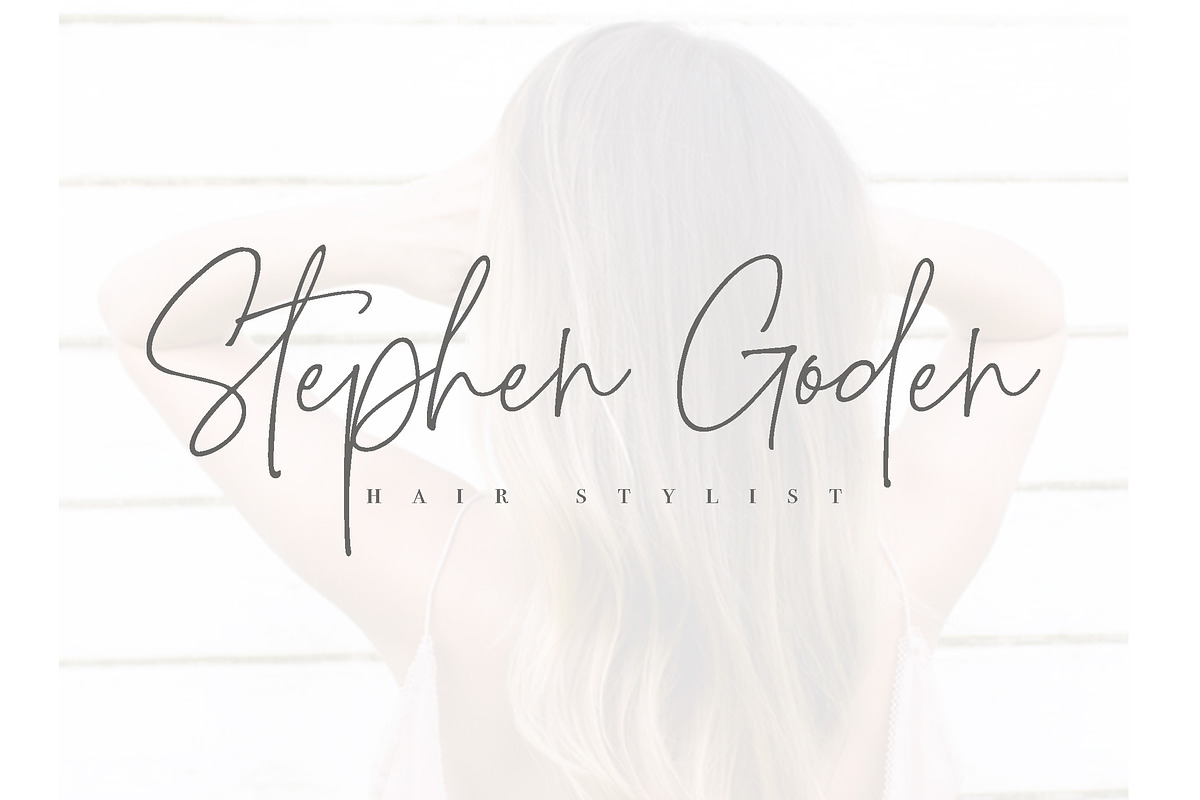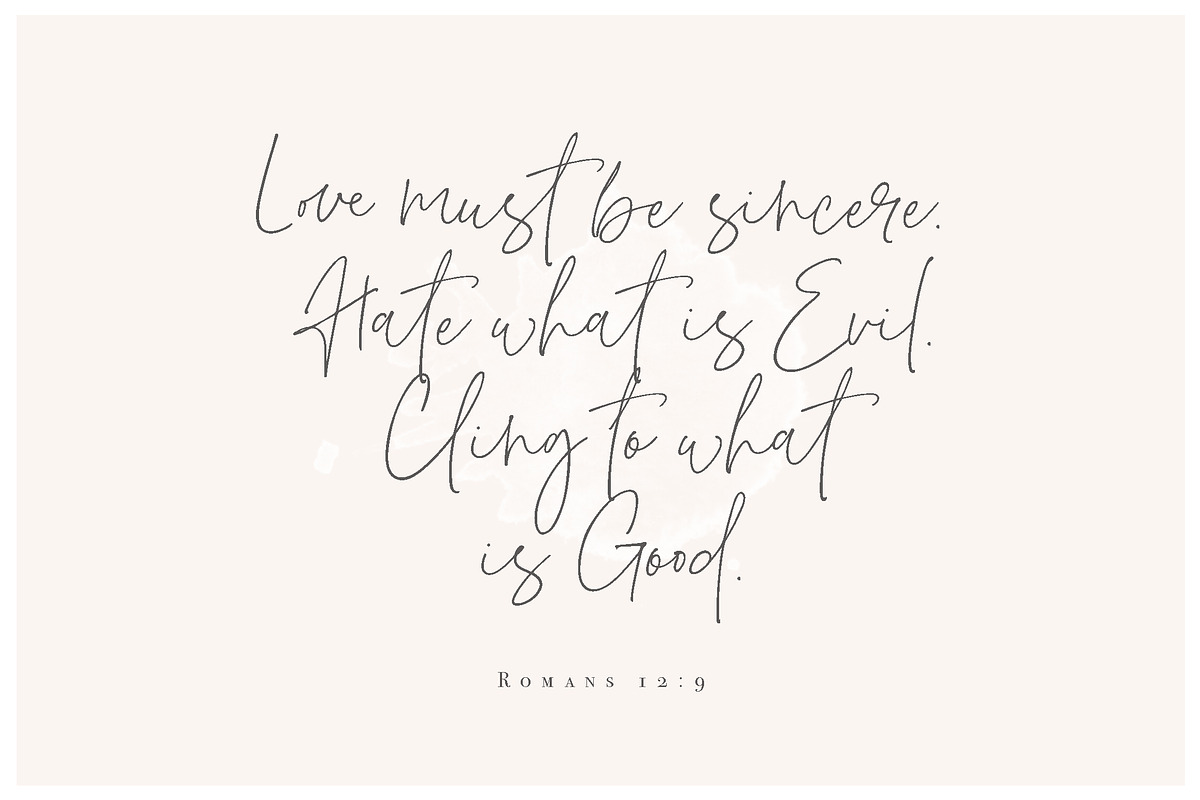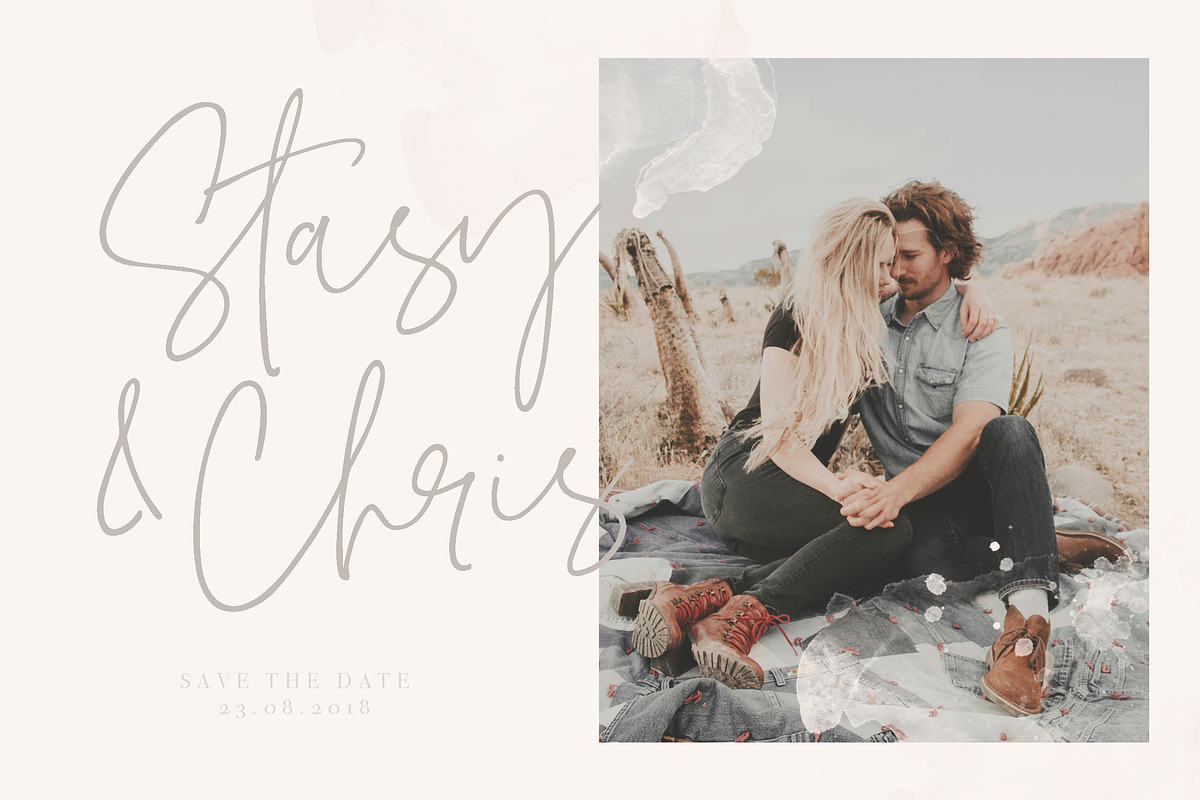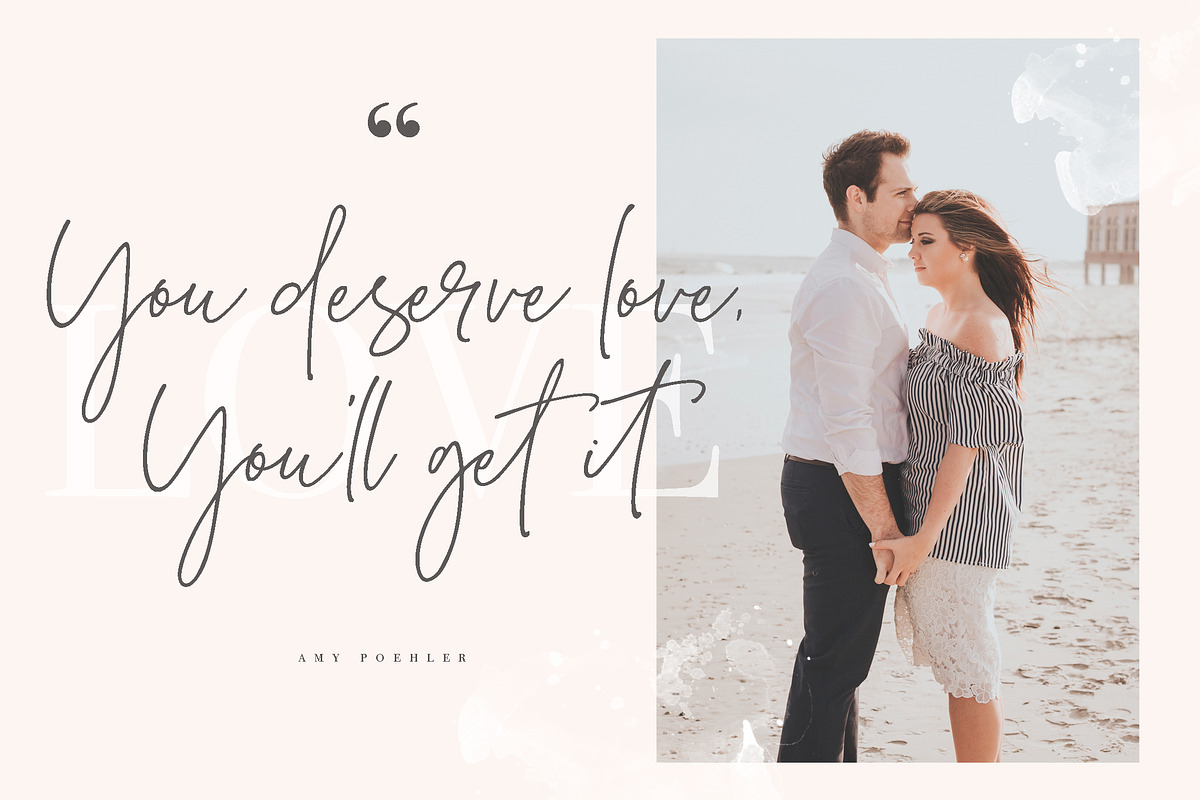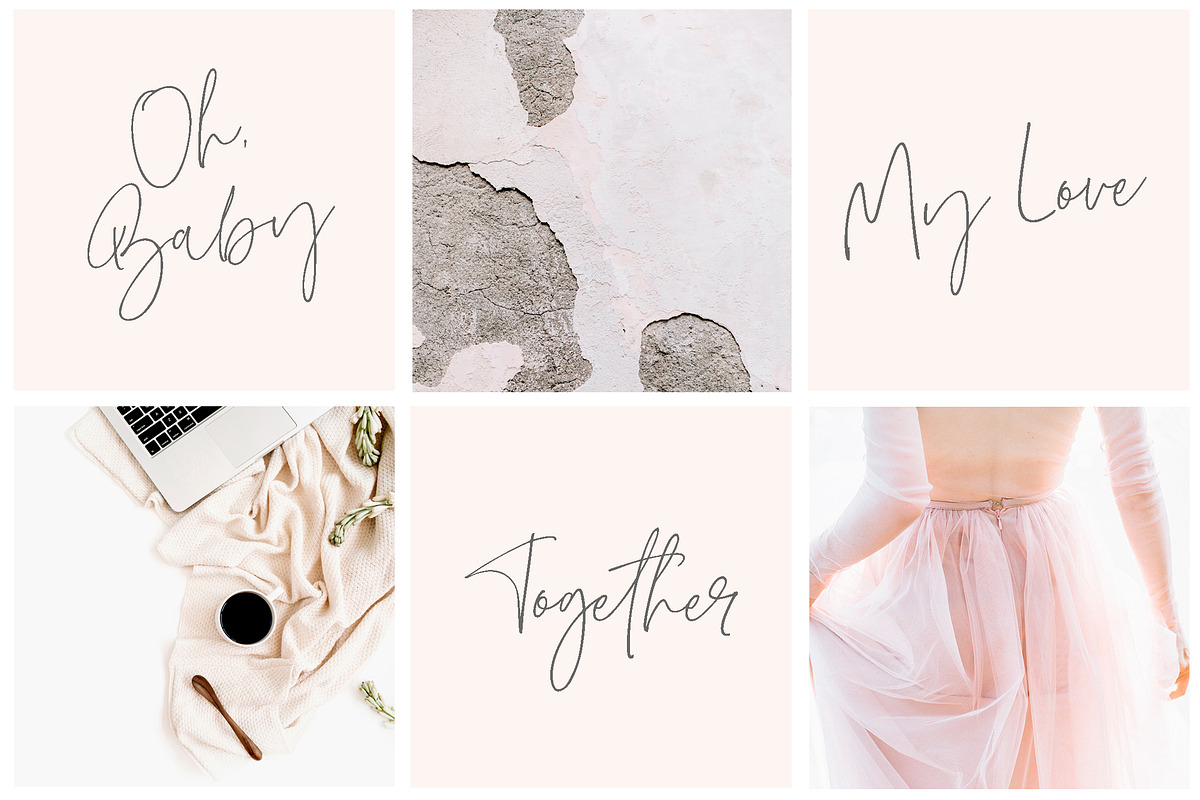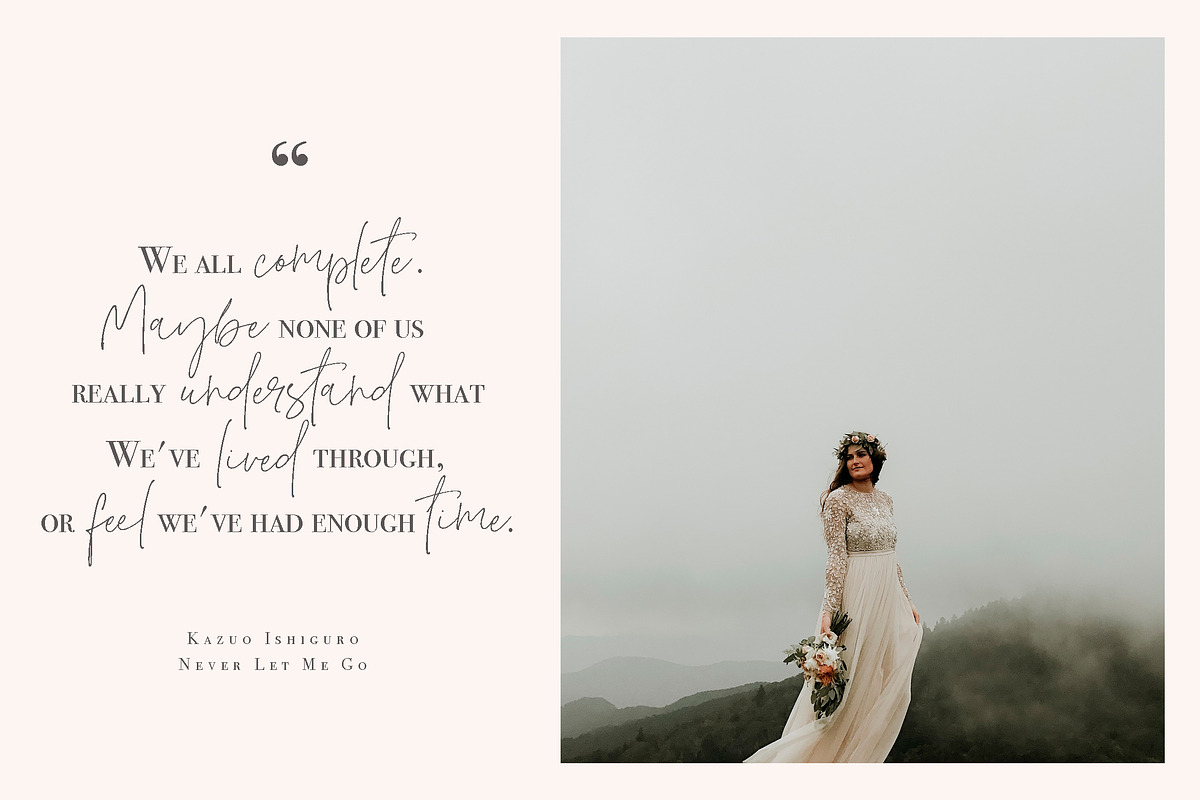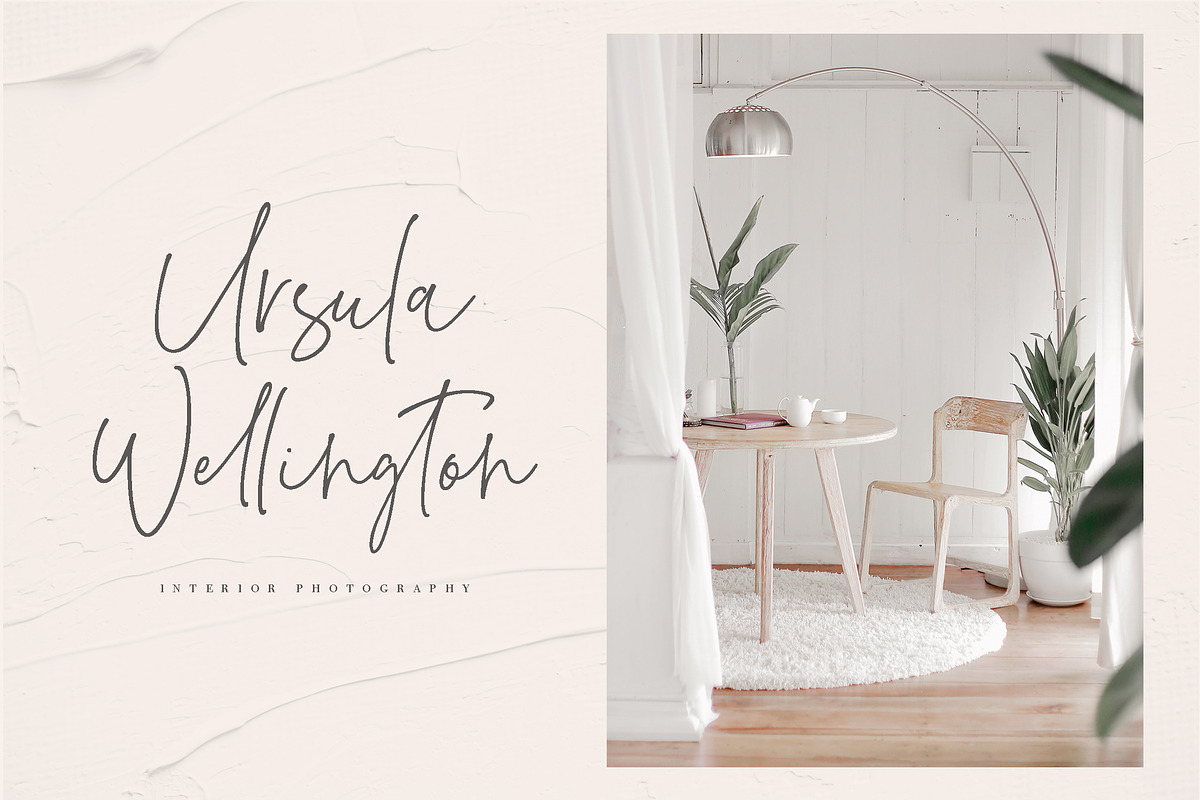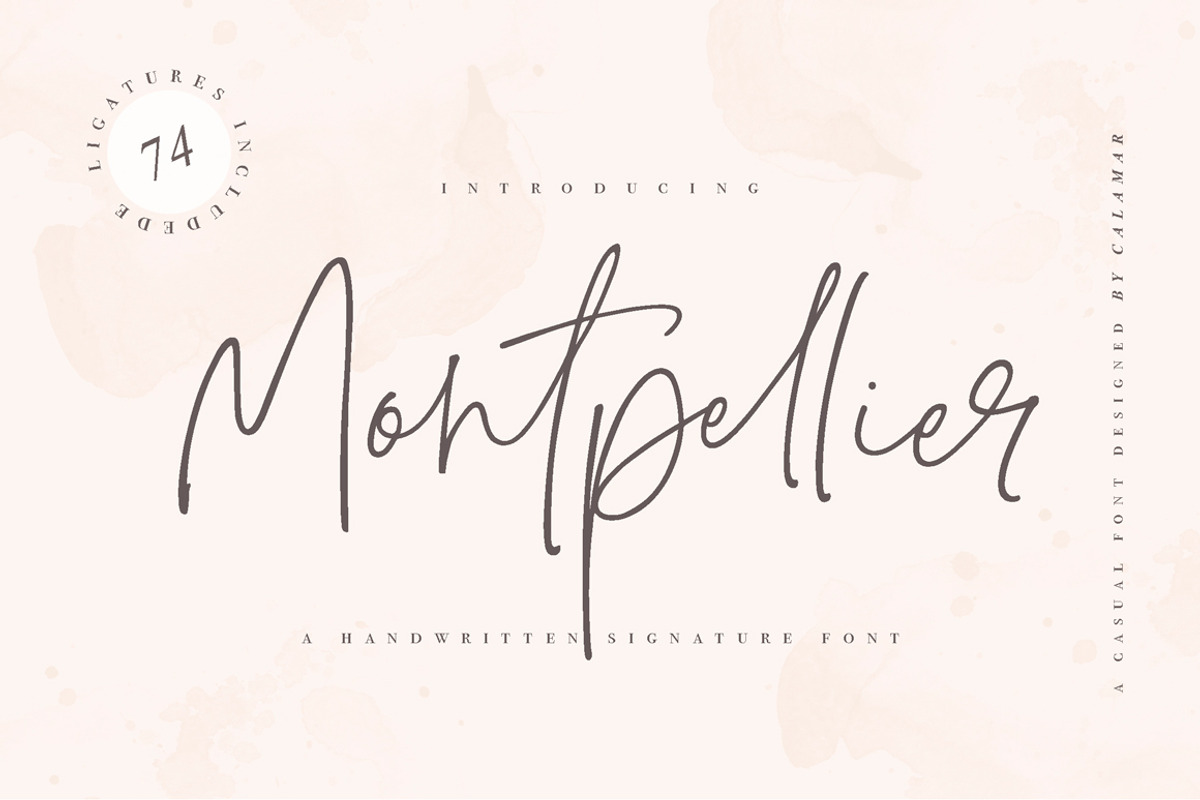
Montpellier | Signature Font
Montpellier Font is a handwritten signature font that is perfect for branding, social media headers, product packaging, wedding invites and cards and so on. This font is completely hand-drawn and contain 74 ligatures to perfectly re-create natural handwriting.
- Montpellier Font includes Upper and Lowercase Basic Characters, Numbers and Punctuation.